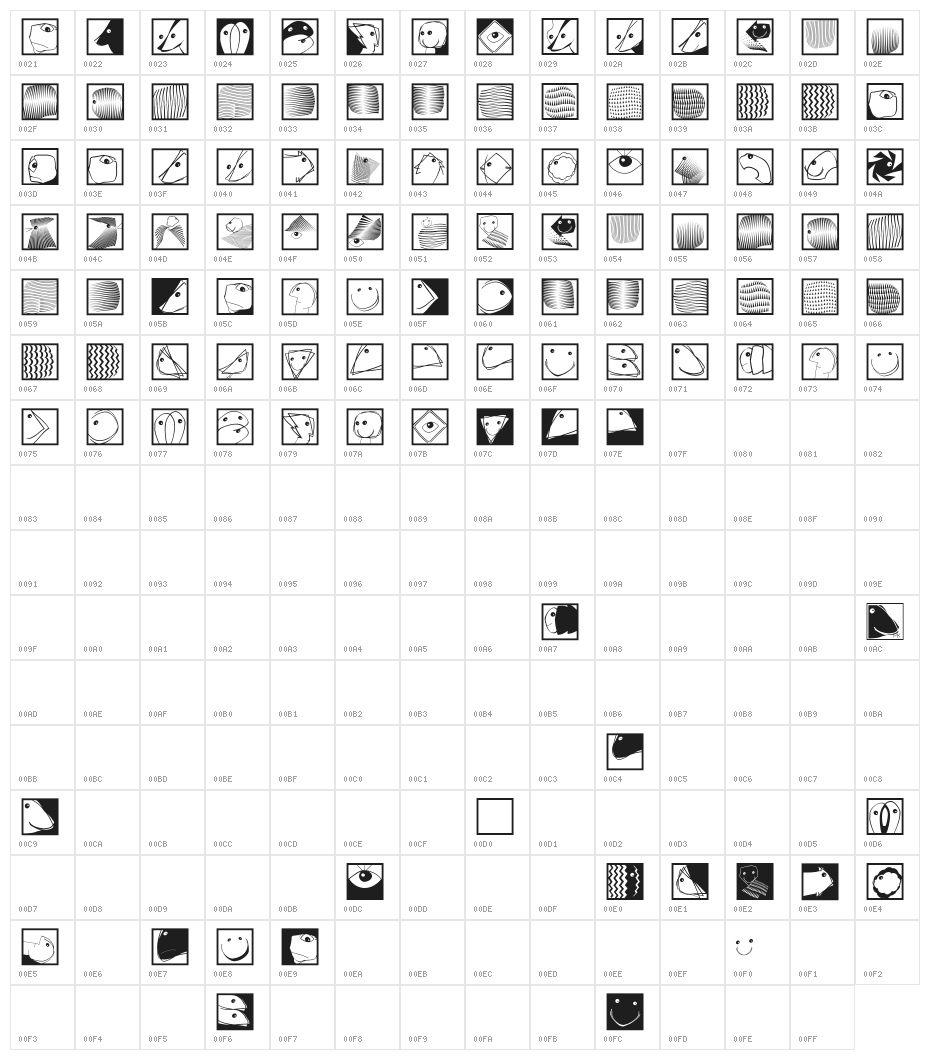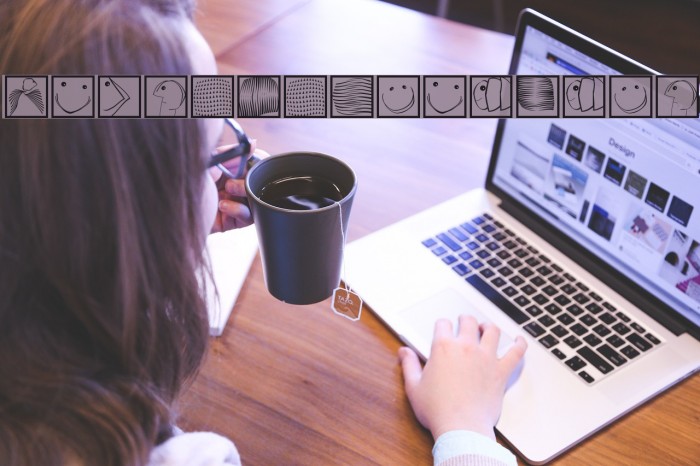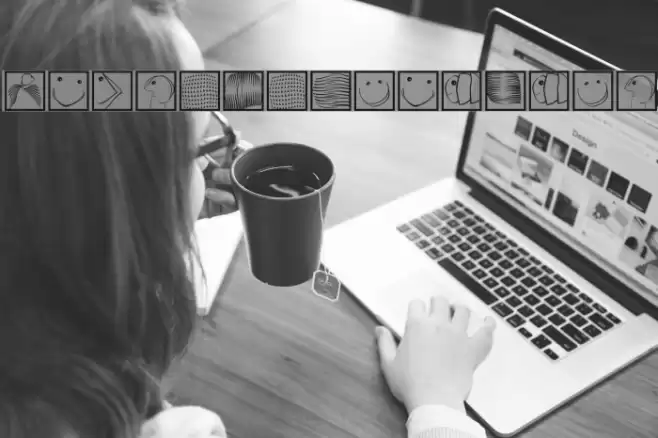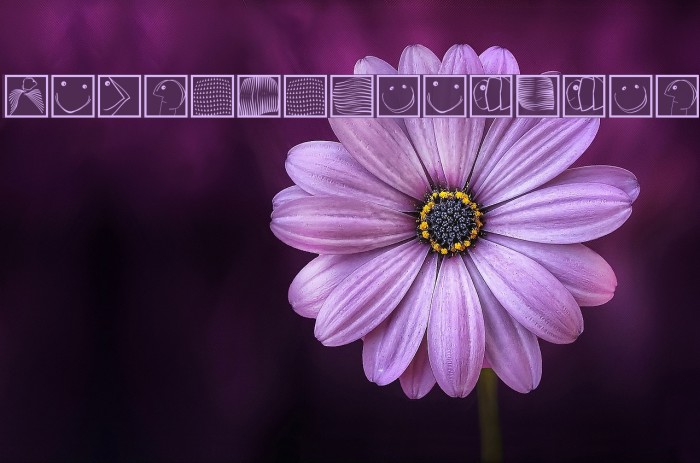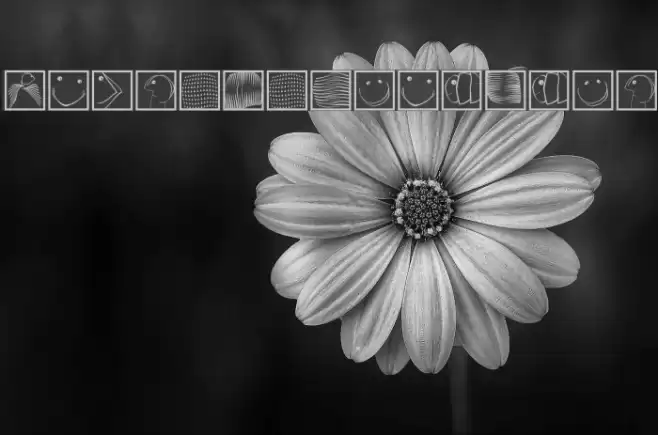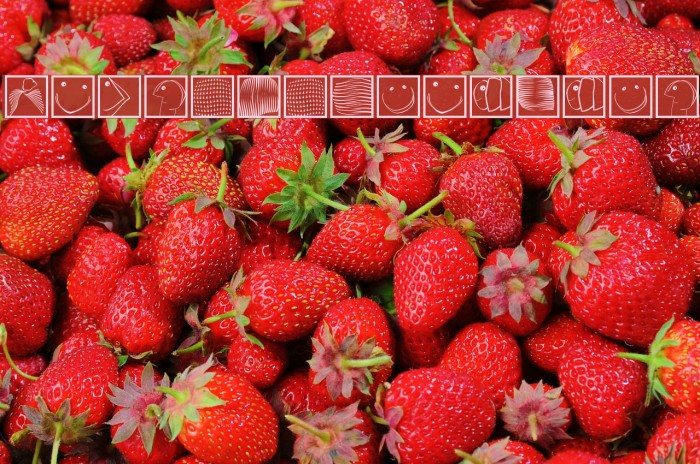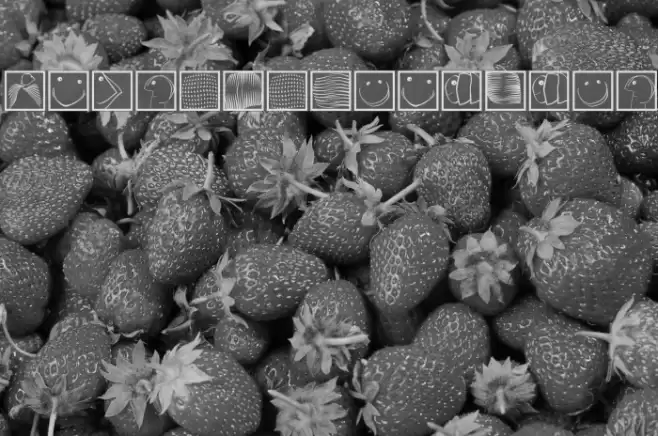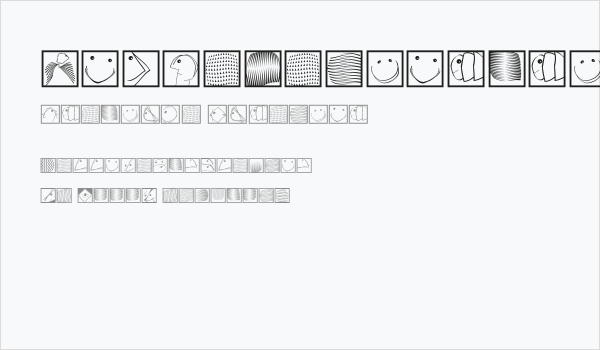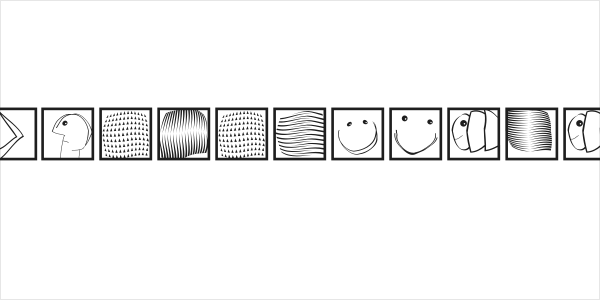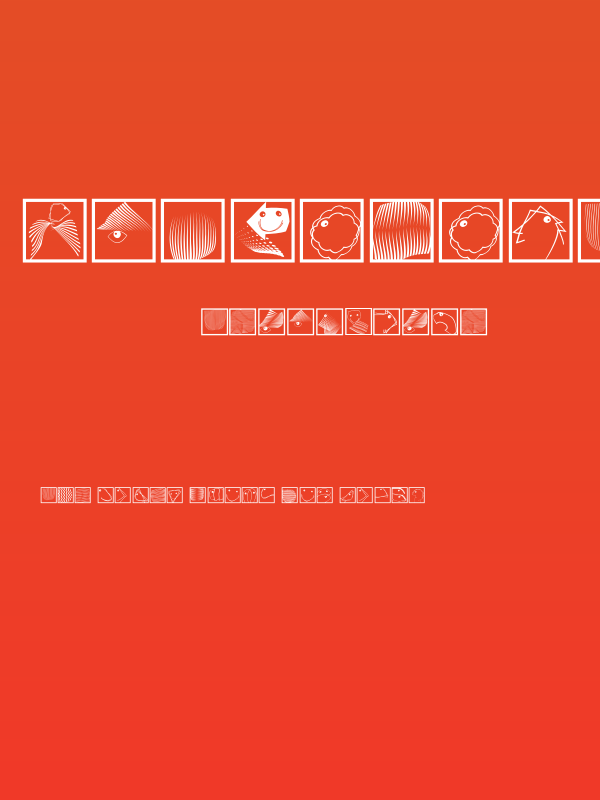
MouseVectorarts Font
MouseVectorarts Description
Highly decorative and abstract font where each character is represented by a unique vector-based illustration, often resembling stylized animals, faces, or organic patterns within square frames. The glyphs are not traditional letterforms but rather artistic interpretations, making legibility secondary to visual impact.
| Overall Style | Decorative, Abstract, Artistic |
| Use Case | Logos, Posters, Art projects, Display titles |
| Proposed Projects | Art posters, album covers, experimental branding, creative event invitations, editorial illustrations. |